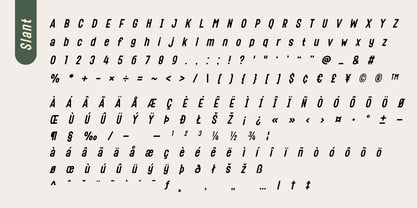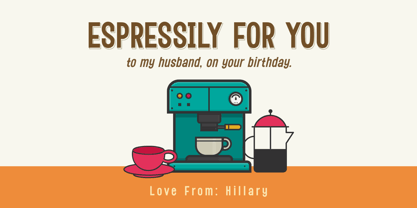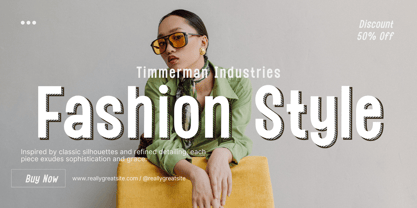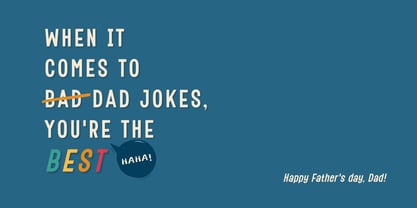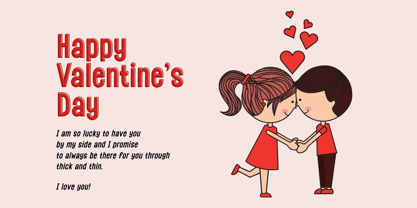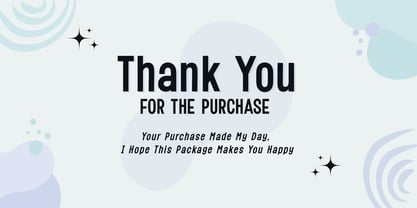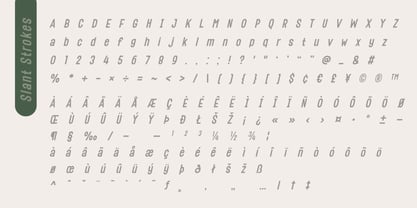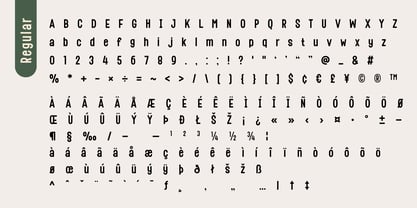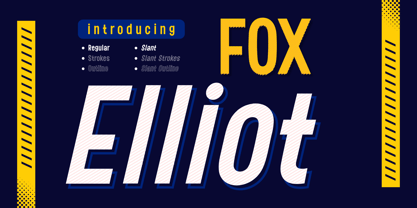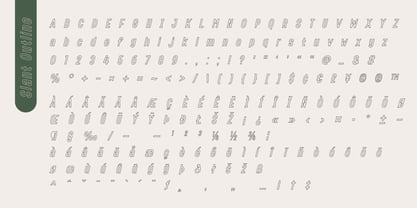
Fox Elliot
by Fox7
The Fox Elliot Font Family was designed by Rattana Rattanawan and published by Fox7. Fox Elliot contains 5 styles and family package options.
Fox Elliot is a bold and dynamic sans serif font designed to bring energy and confidence to your typography. With its strong letterforms and modern slanted styles, this font is perfect for eye-catching titles, sports branding, posters, and bold design statements.
Fox Elliot comes with 6 versatile styles:
❀ Regular
❀ Strokes
❀ Outline
❀ Slant
❀ Slant Strokes
❀ Slant Outline
Whether you want a clean professional look or a playful retro vibe, Fox Elliot adapts seamlessly to your creative projects. Its geometric structure combined with stylish outlines and italic slants make it ideal for logos, headlines, advertising, social media graphics, product packaging, and apparel design.
Bring your designs to life with a font that’s powerful, stylish, and full of impact!